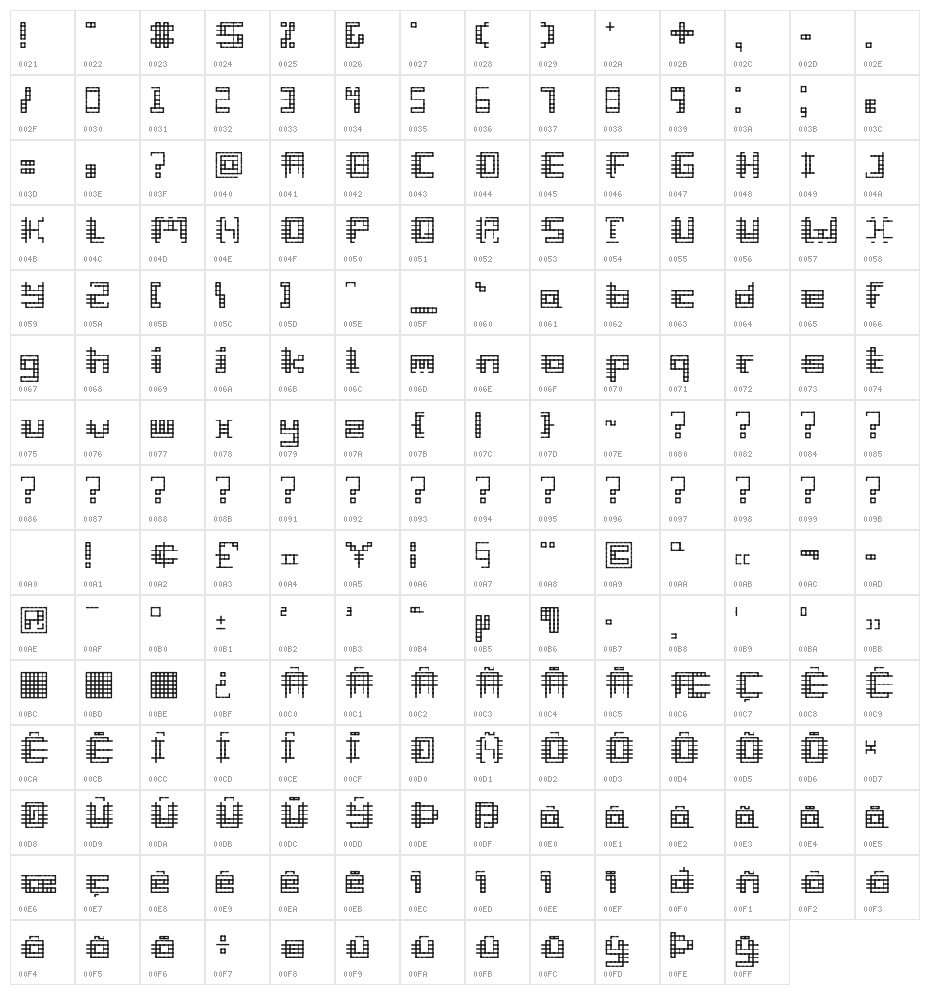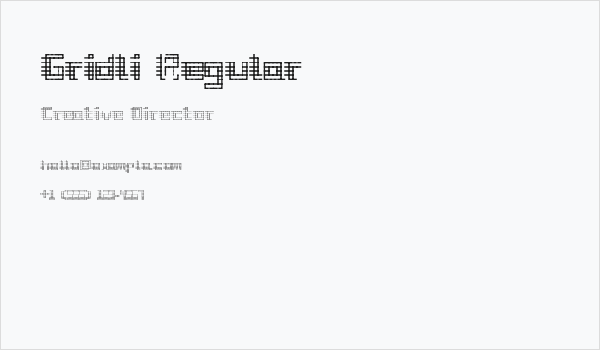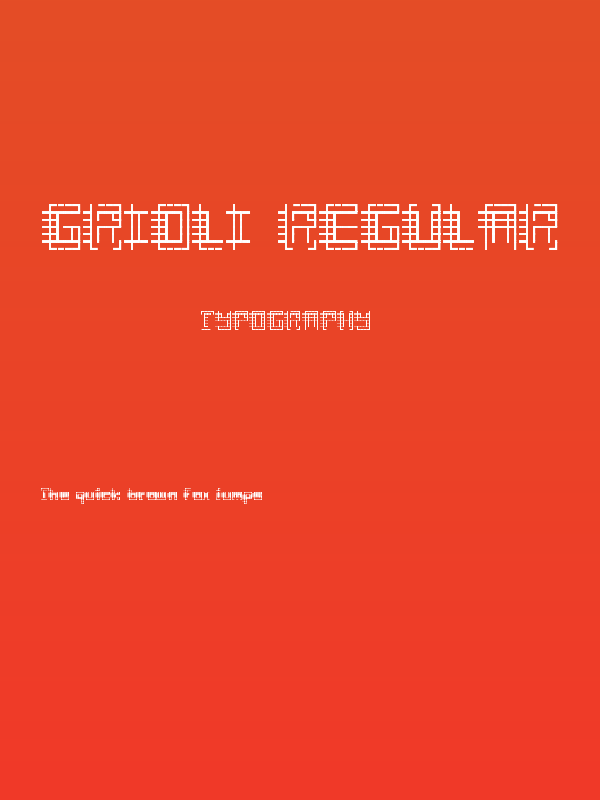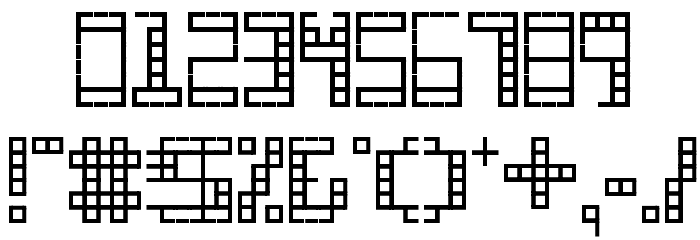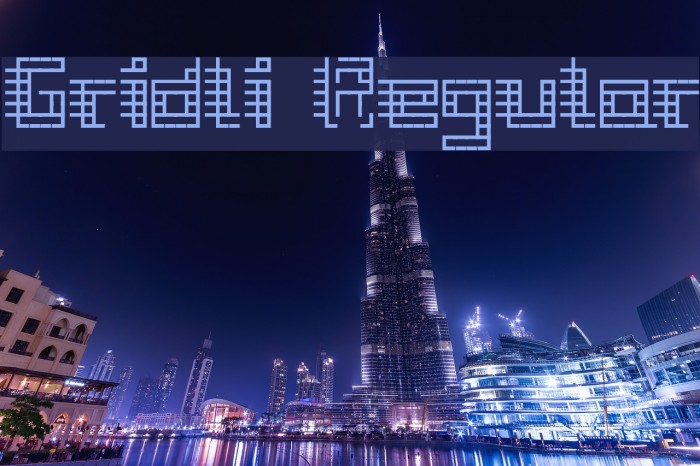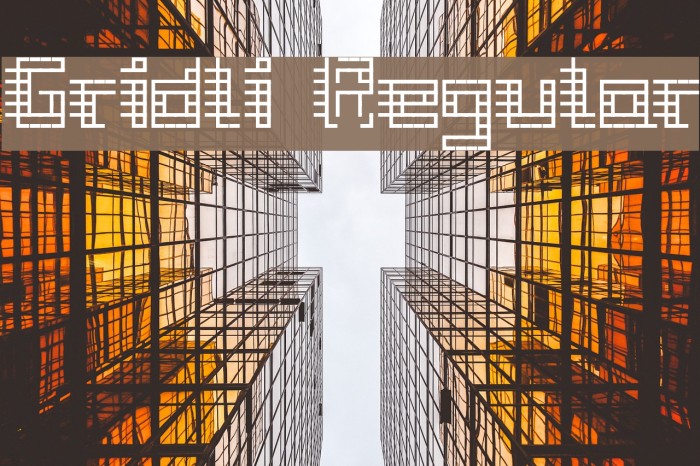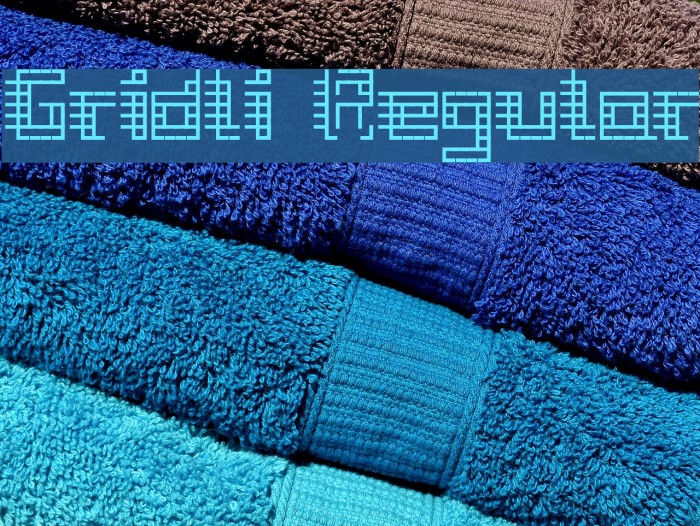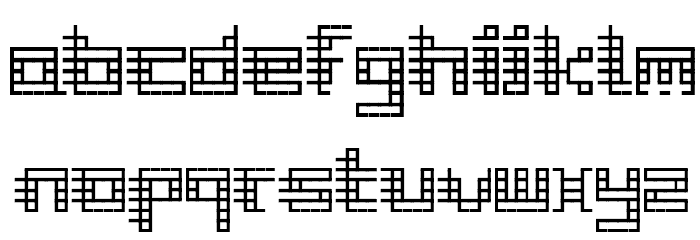
Gridli Regular Font
Gridli Regular Description
This font features a unique grid-like structure, where each character is composed of a series of horizontal and vertical lines that create a boxy, pixelated appearance. The design is reminiscent of early digital displays or retro video game graphics, giving it a distinct, nostalgic feel. The characters are evenly spaced, and the lines are consistent in thickness, providing a uniform look across all letters and numbers. Special characters maintain the same grid pattern, ensuring visual coherence throughout the font set. This style is particularly eye-catching and can add a playful, tech-inspired touch to any project.
GRIDLI-REGULAR UPPERCASE
GRIDLI-REGULAR LOWERCASE
GRIDLI-REGULAR OTHER CHARS
| Proposed Projects | Ideal for video game designs, tech-themed posters, or digital art projects. |